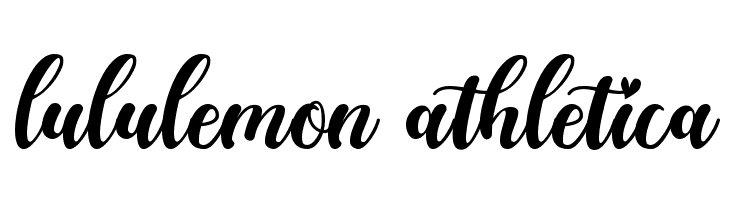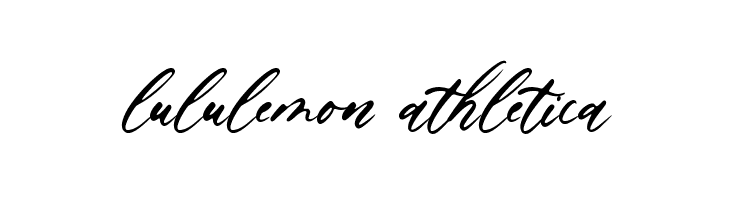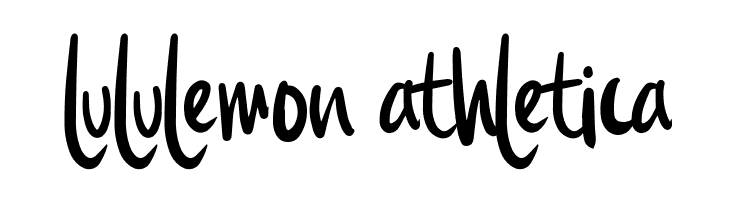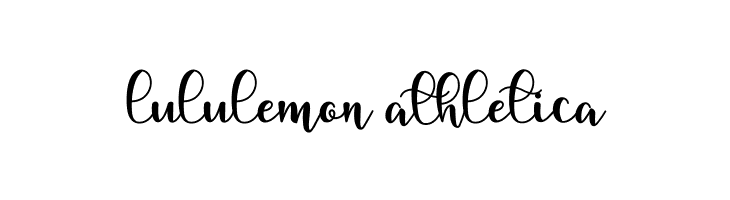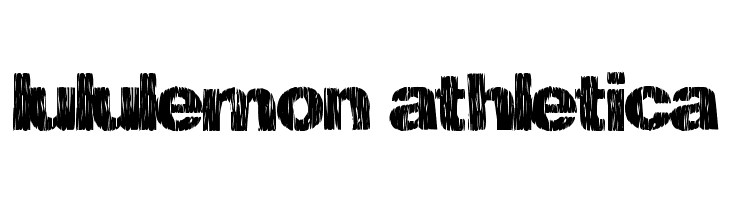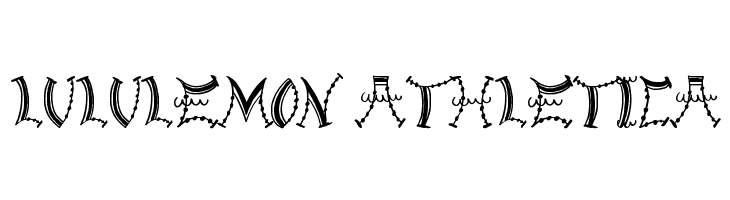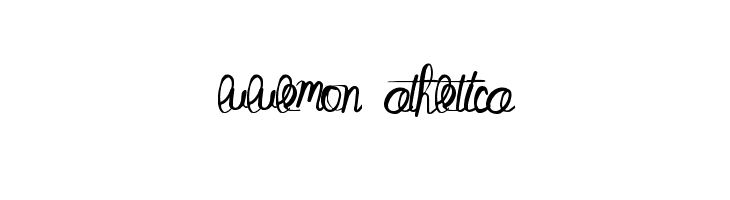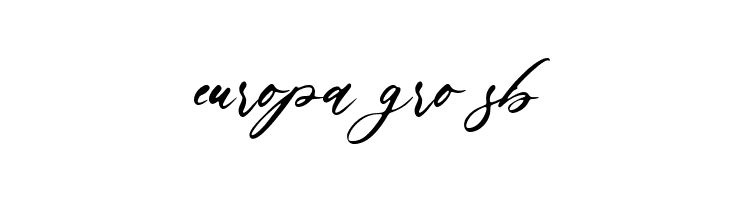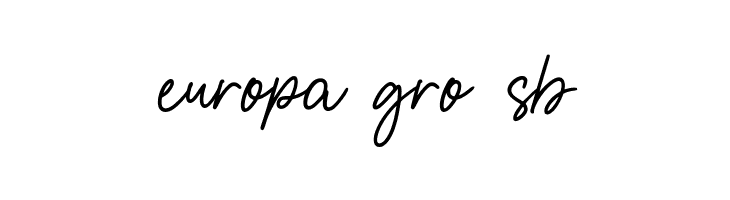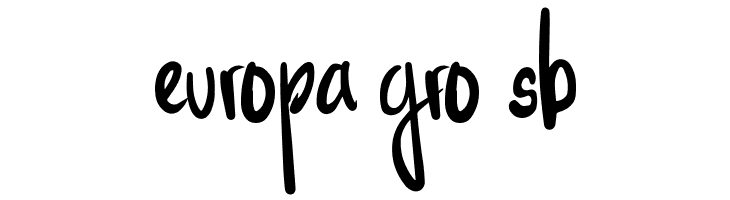
A bold, handwritten font with a dynamic and expressive style.
A whimsical, decorative font inspired by vintage fairground signage.
A flowing, elegant script font with bold, expressive characters.
An elegant and flowing script font with intricate swirls and loops.
A bold, textured font with a rustic, hand-drawn appearance.
A flowing, cursive script font with elegant, connected strokes.
A playful, bold handwritten font with a casual and energetic style.
A lively, cursive font with smooth, flowing strokes and elegant connections.
A playful, cursive font with a handwritten style, ideal for personal and creative projects.
A playful, expressive handwritten font with fluid, interconnected strokes.